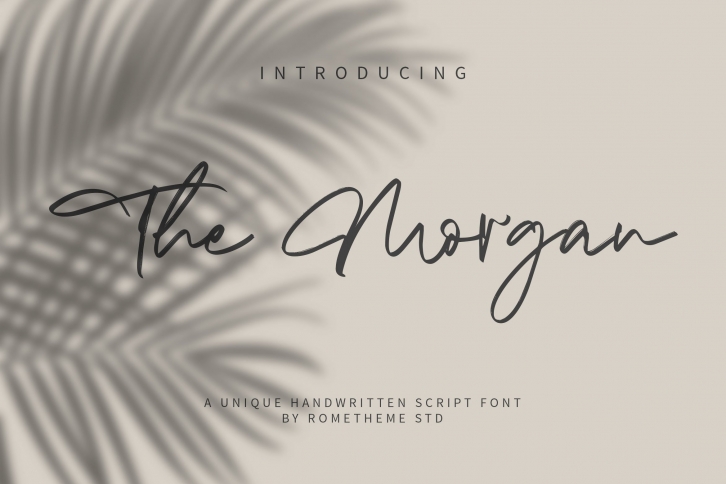
The Morgan is a trendy and unique font with an authentic style. It was designed by Rometheme and it's a great choice for creative people who need such a font. It was released on December 15, 2020 and the file size is 15.96 MB. The Morgan will add an organic vibe to any design idea!